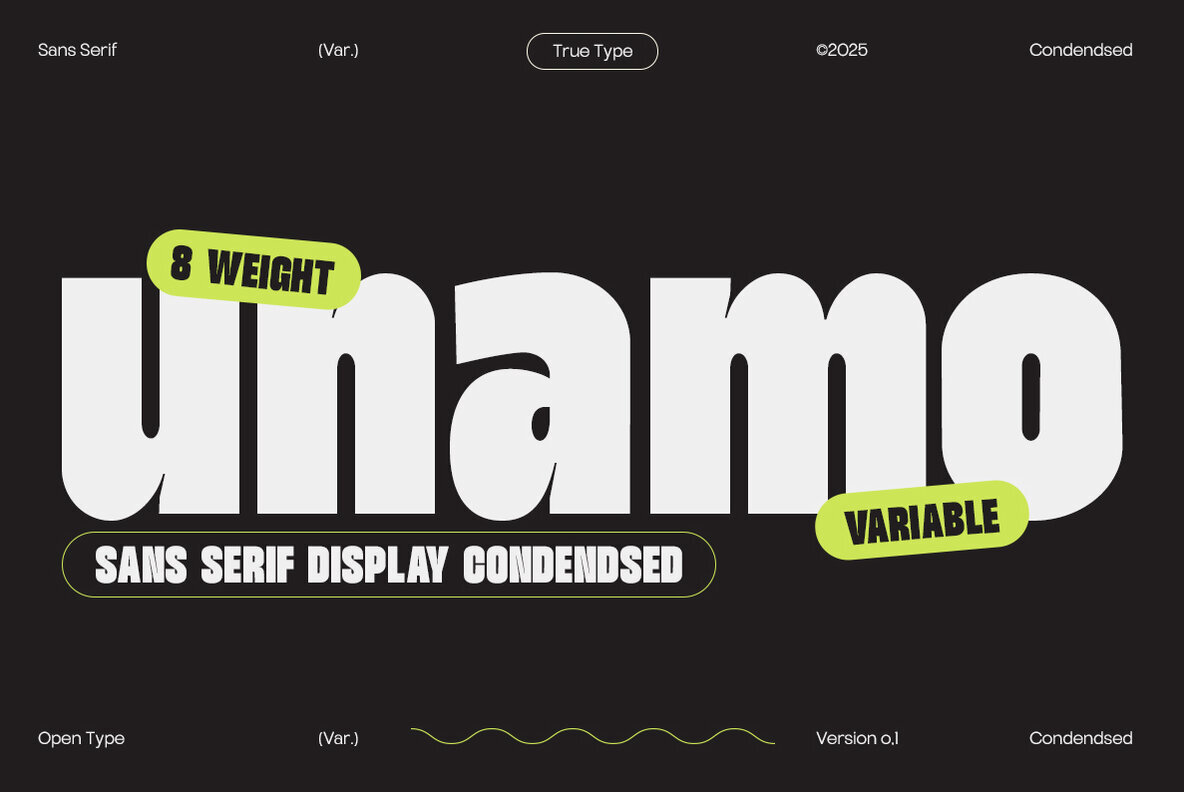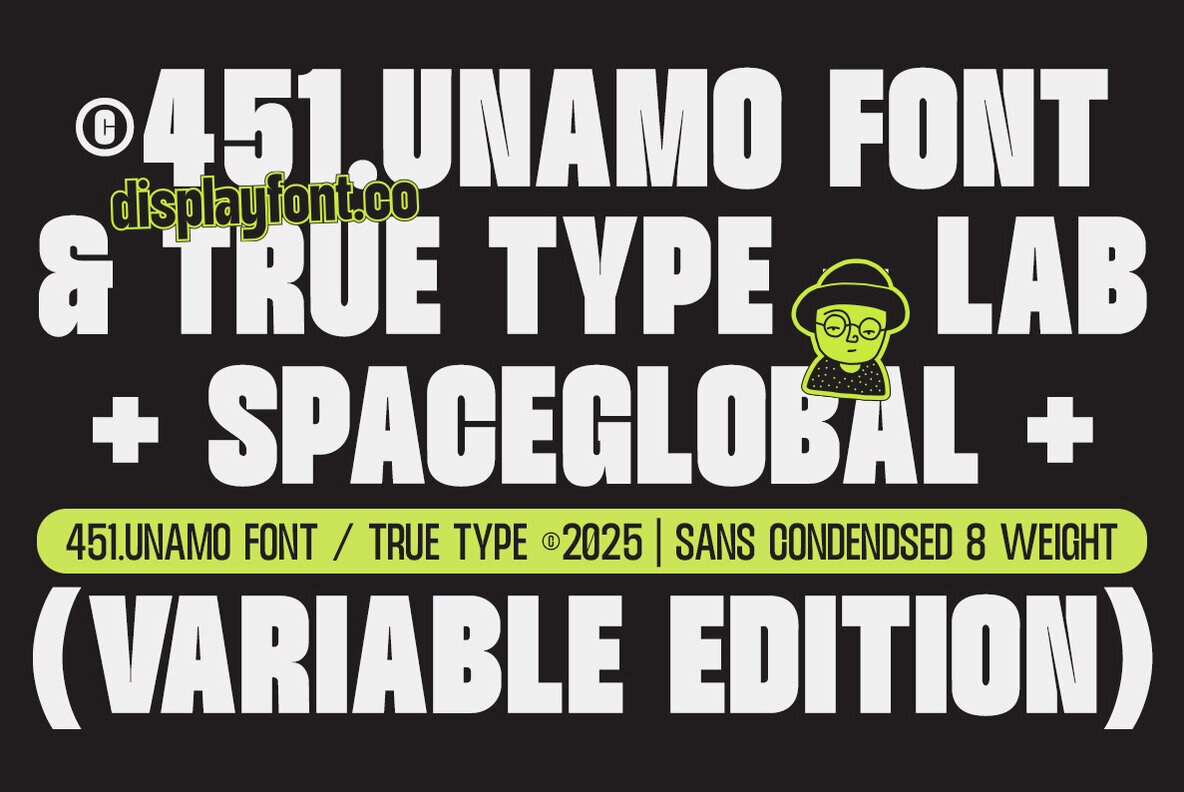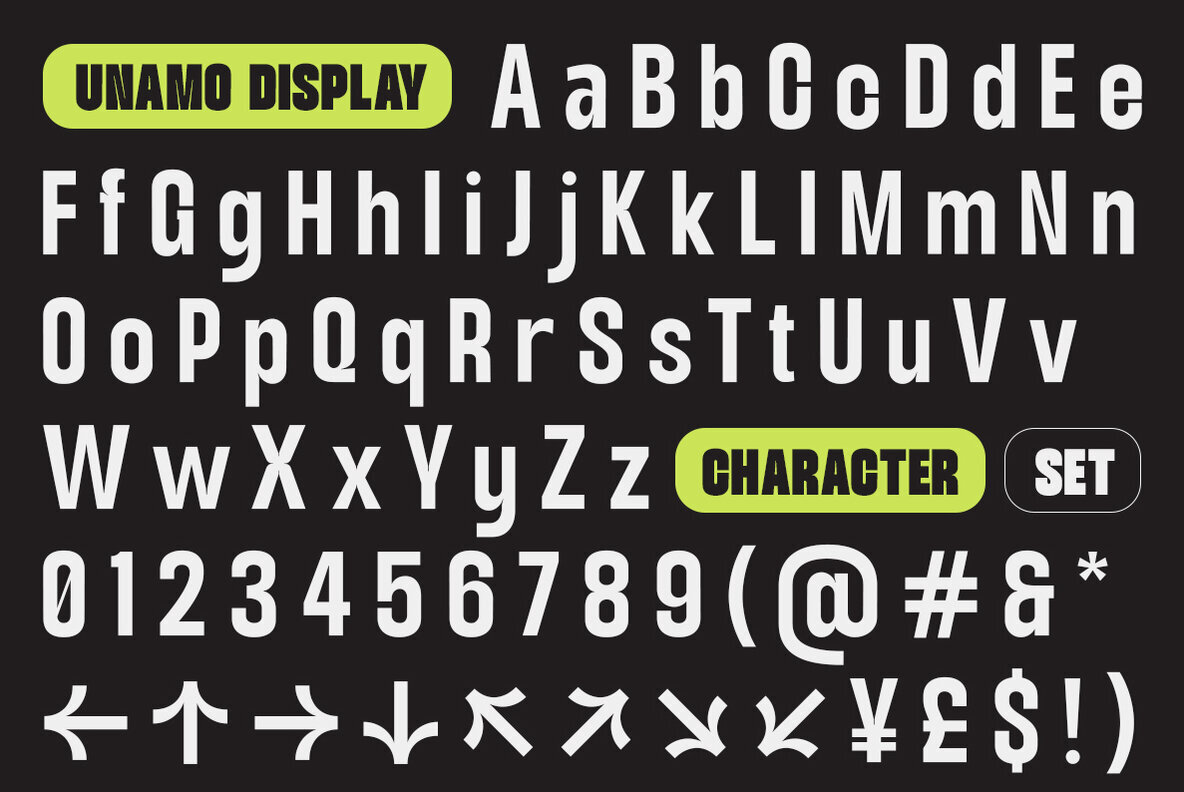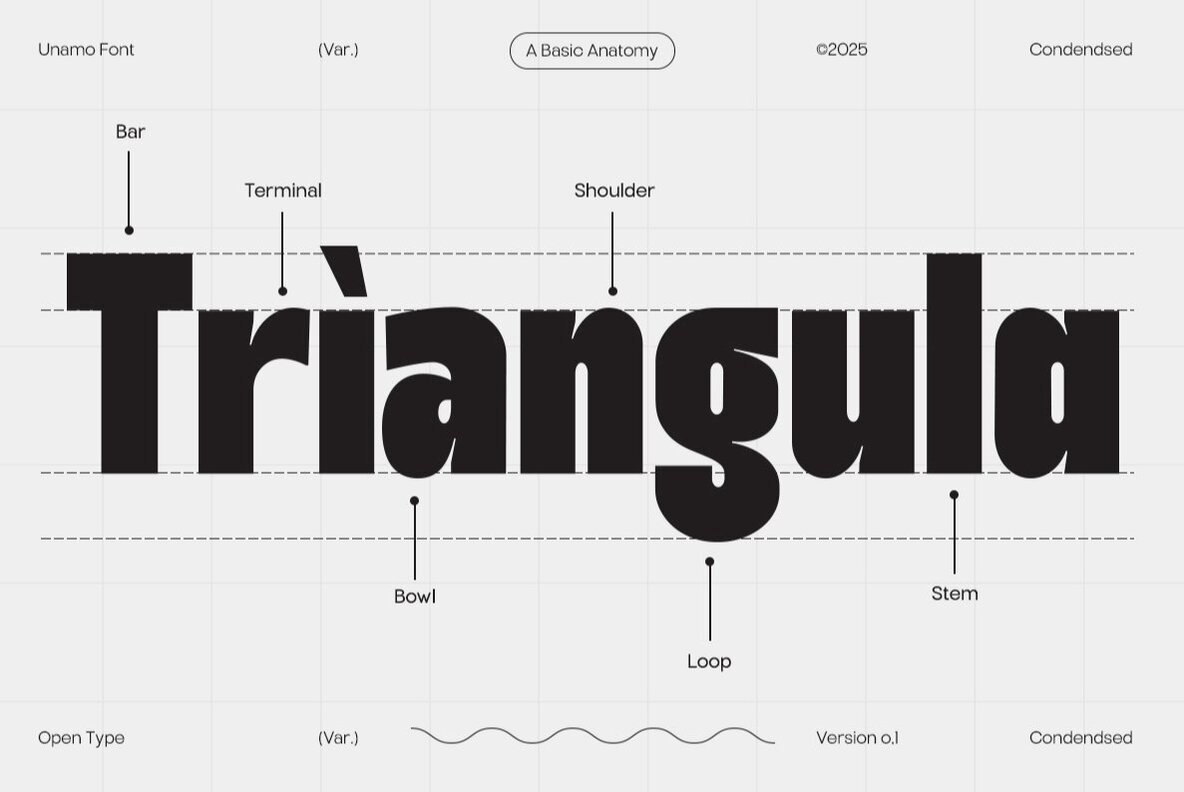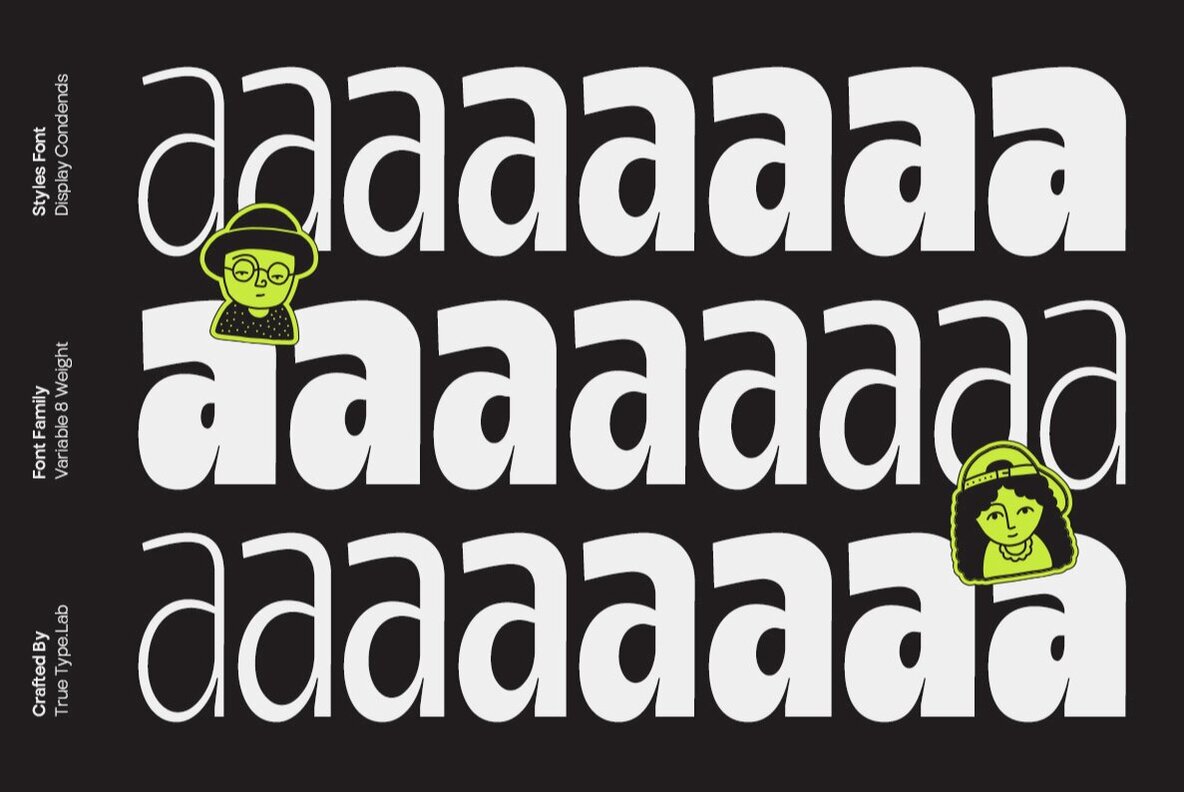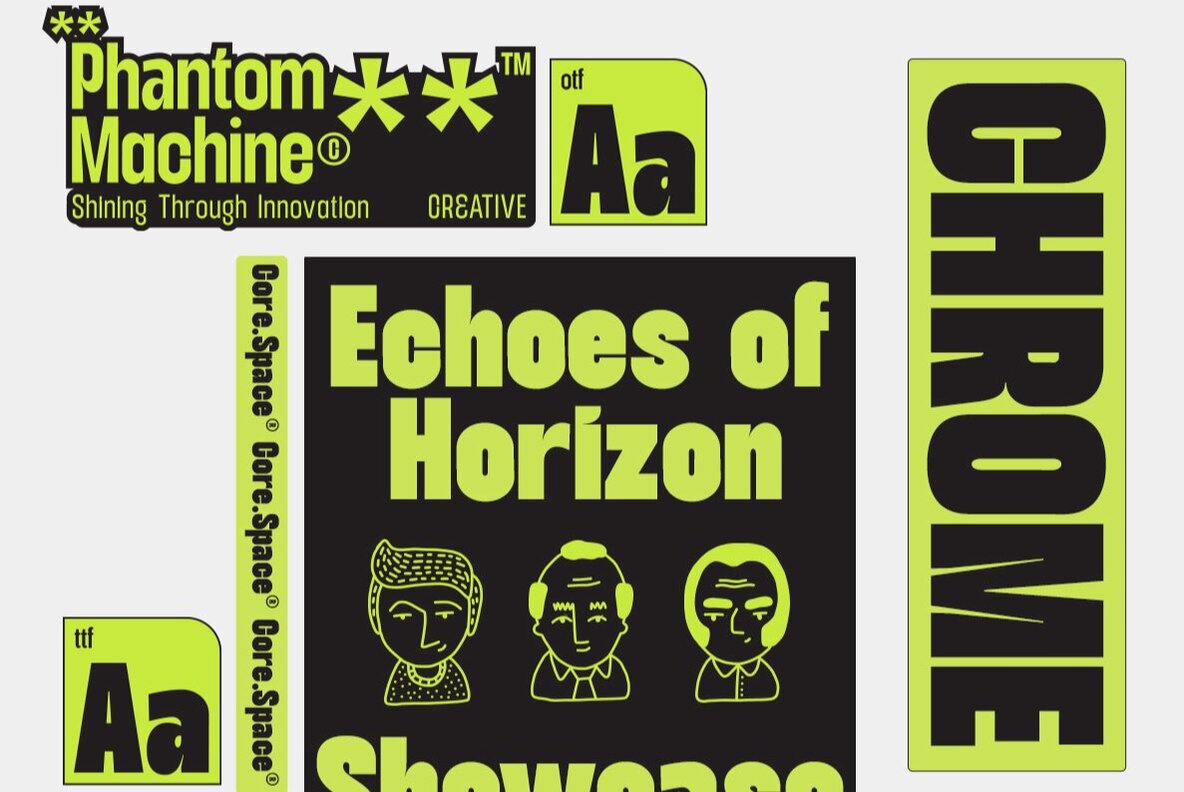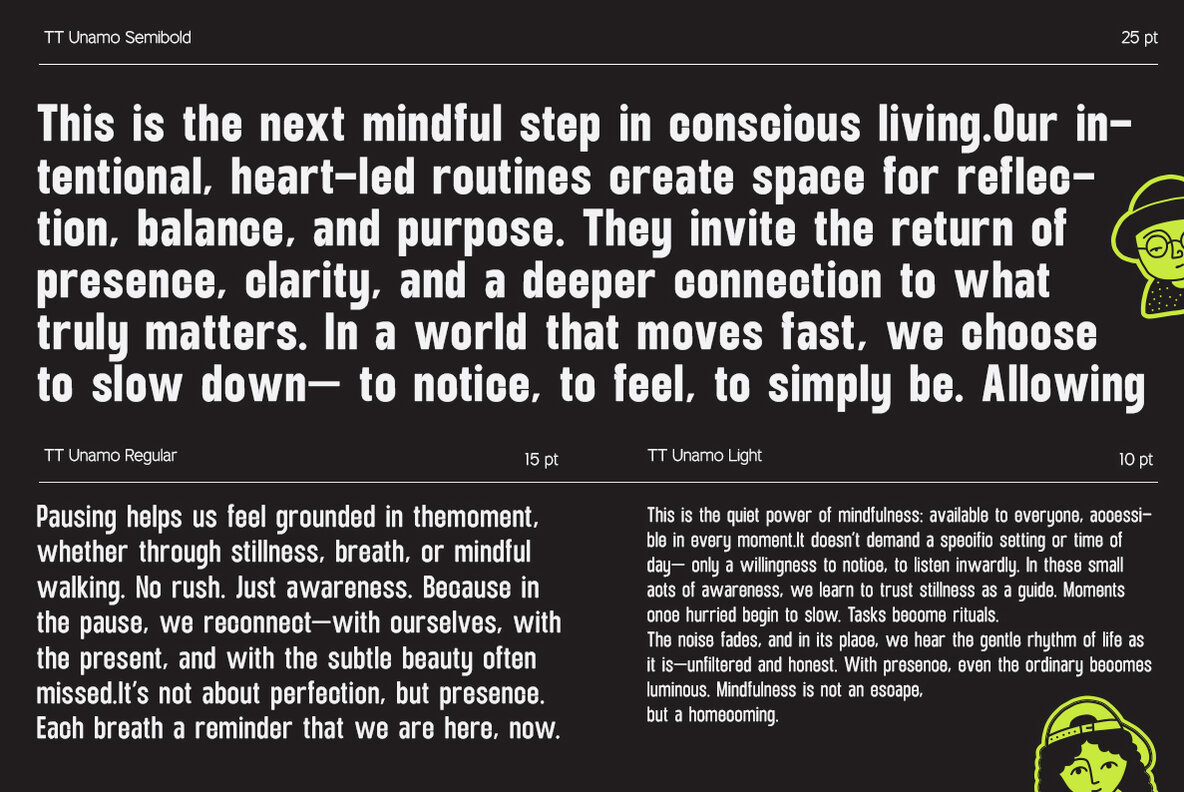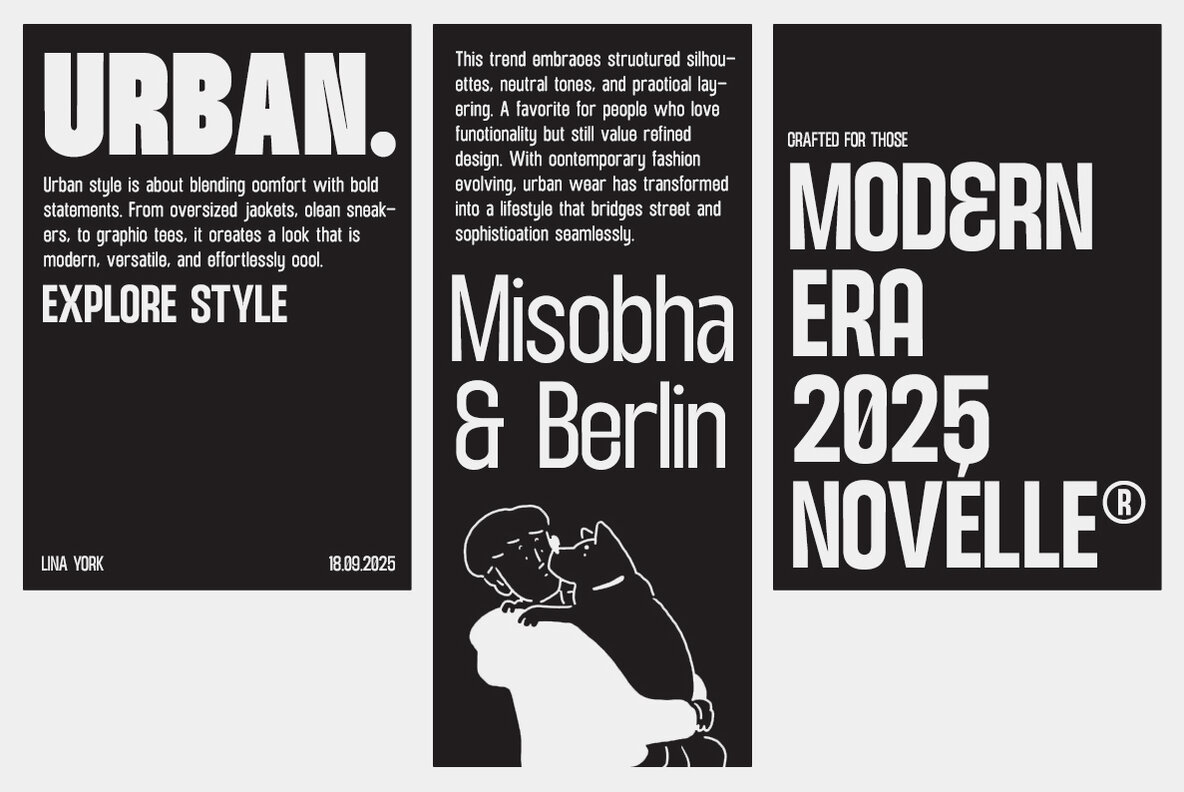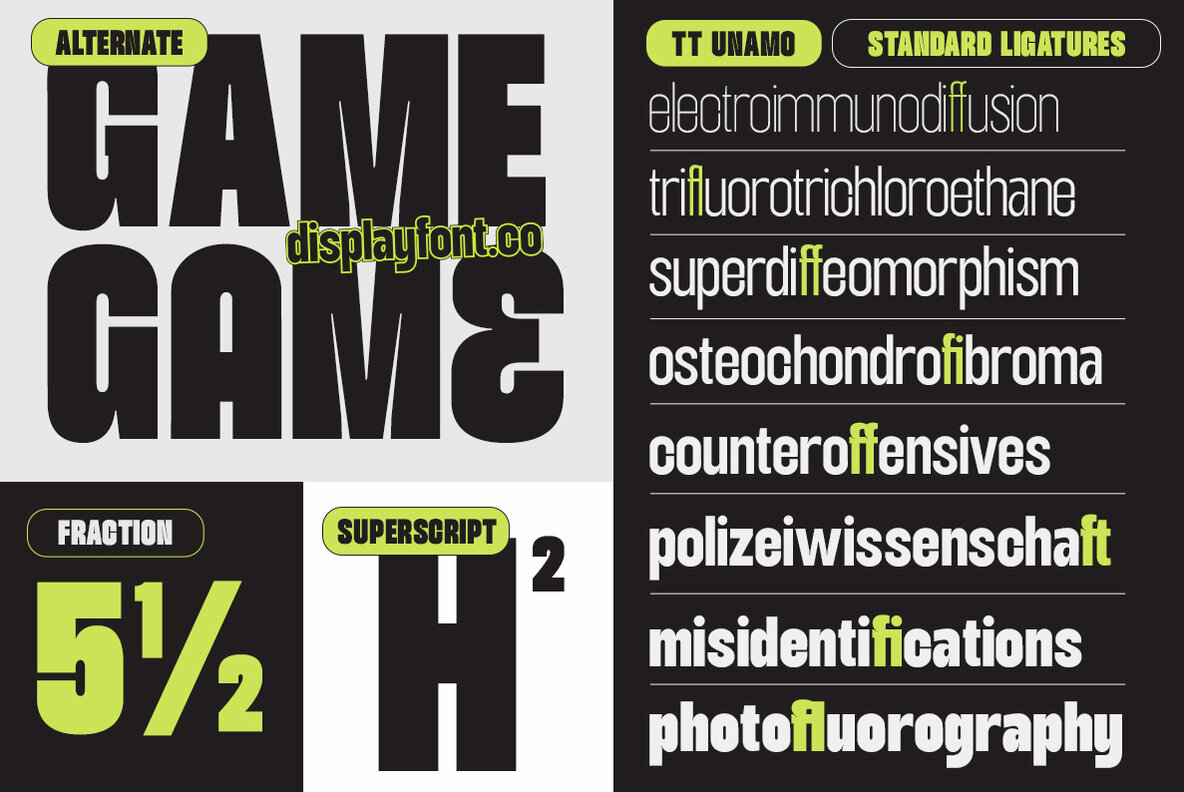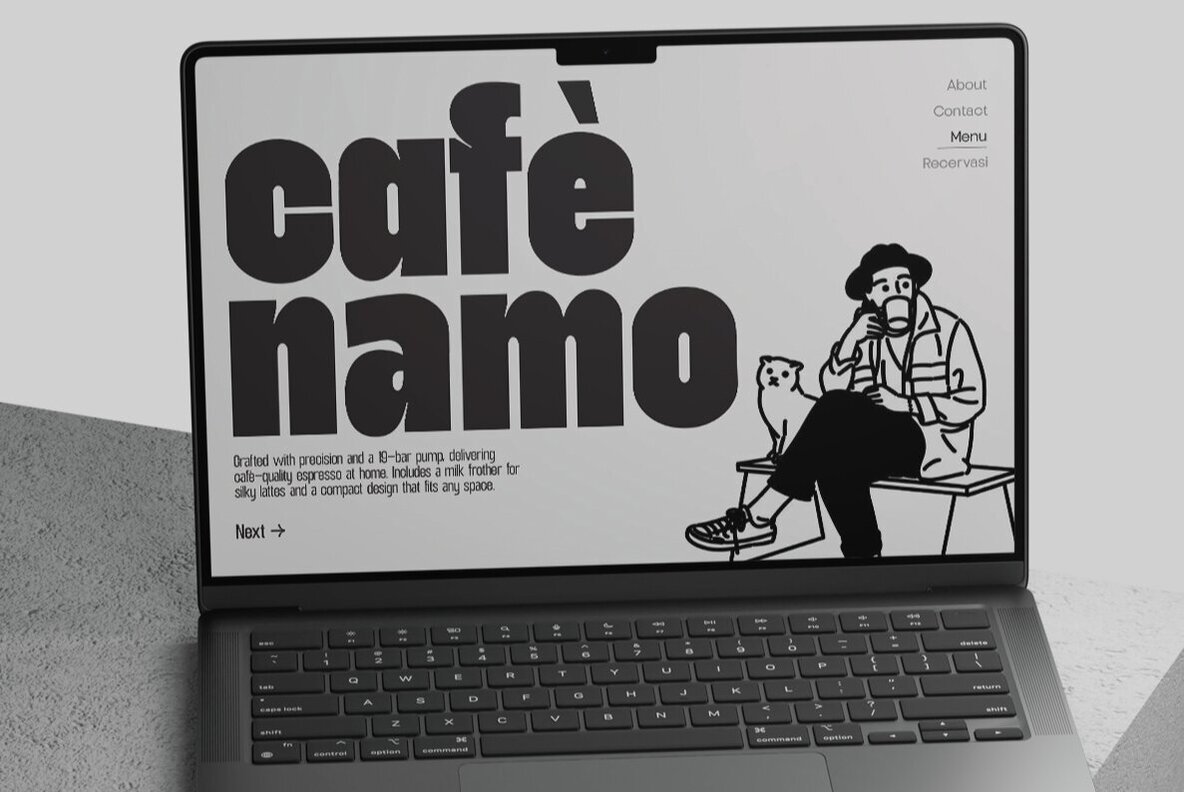
TRT Unamo Font
TRT Unamo is a bold, modern display sans condensed font family, designed to command attention and deliver messages with unparalleled precision. The clean lines and narrow proportions, coupled with a strong geometric foundation, make it an ideal choice for projects requiring impactful typography with crystal-clear clarity. Engineered to offer remarkable versatility, TRT Unamo is exceptional in posters, headlines, editorial titles, and branding projects, as well as packaging and digital interfaces. Its condensed design accommodates more text in limited spaces while ensuring superior legibility and visual balance. Featuring a refined yet assertive character, TRT Unamo is perfectly suited for contemporary brands, sports campaigns, fashion editorials, and dynamic presentations. Whether crafting a confident headline or a stylish typographic element, TRT Unamo ensures your message stands out profoundly.TRT Unamo: Modern Display Sans With Geometric Precision